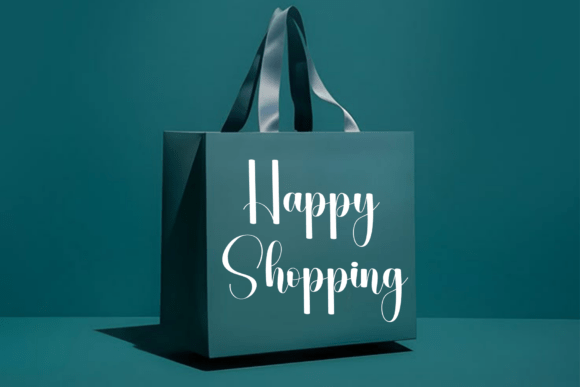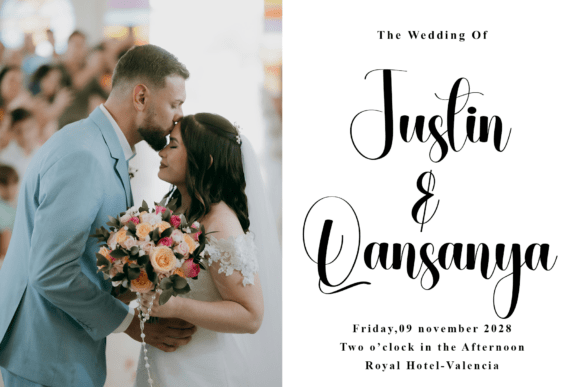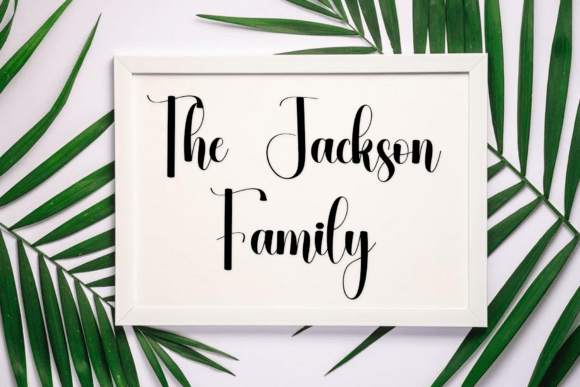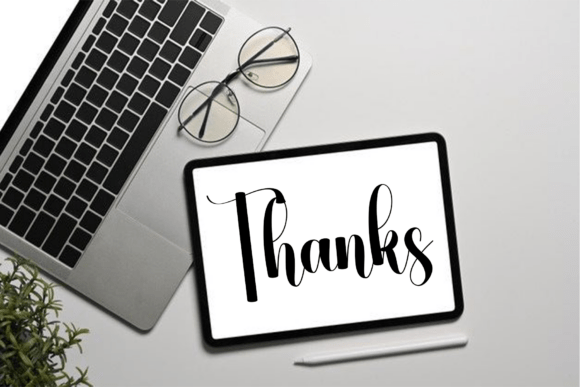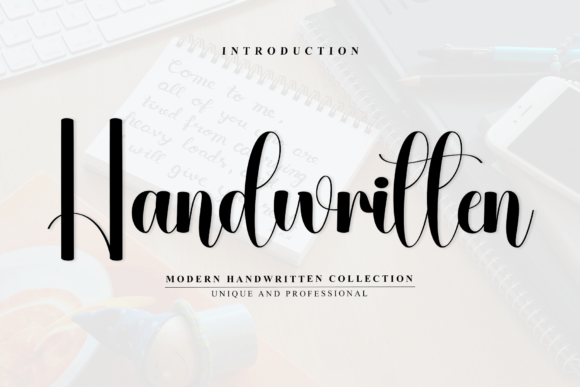
The Elegance of Handwritten Fonts: A Modern Calligraphy Script
In the realm of typography, handwritten fonts have always been a popular choice for designers seeking to add a touch of elegance and sophistication to their creations. Among these, the “Handwritten” font stands out as a quintessential example of modern calligraphy. Belonging to the handwritten script category, this font boasts a unique blend of traditional and contemporary design elements, making it an ideal choice for a wide range of applications.
Characteristics of the Handwritten Font
The “Handwritten” font is characterized by its elegant, flowing strokes with a high-contrast weight. The tall ascenders and sweeping curves of the letters create a sense of rhythm and fluidity, reminiscent of natural handwriting. However, unlike everyday handwriting, this font has been polished to achieve a refined, professional look. The smooth, rounded terminals of the letters add a touch of warmth and sophistication, setting it apart from more traditional script fonts.
Design and Aesthetic Appeal
One of the defining features of the “Handwritten” font is its fluid, cursive style, where the letters are connected in a seamless flow. This design choice gives the font a stylish, feminine, and expressive appearance, making it particularly well-suited for applications where elegance is paramount. The font strikes a delicate balance between contemporary design and timeless script traditions, resulting in a form that conveys both delicacy and confidence.
Versatility Across Creative and Professional Contexts
The versatility of the “Handwritten” font is one of its most compelling attributes. Its elegant appearance makes it an excellent choice for branding and logos in industries such as beauty, fashion, and lifestyle, where projecting an image of sophistication and refinement is crucial. Beyond these applications, the font also lends itself beautifully to more personal and intimate uses, such as wedding invitations, greeting cards, and stationery, thanks to its romantic and flowing character.
Applications in Design
The “Handwritten” font can elevate a variety of design projects, adding a personal yet upscale touch. Some of its key applications include:
• Branding and Logos: Ideal for businesses in the beauty, fashion, or lifestyle sectors looking to convey elegance and sophistication.
• Wedding Invitations and Stationery: Adds a romantic, personal touch to wedding invitations, greeting cards, and other stationery items.
• Packaging Design: Enhances product packaging, making it stand out with a refined, luxurious feel.
• Social Media Graphics: Perfect for creating engaging, stylish social media content that captures the audience’s attention.
• Editorial Layouts: Adds a touch of elegance to magazine articles, blogs, and other editorial content, making it more visually appealing.
Why Designers and Crafters Love Handwritten Fonts
Designers and crafters often seek fonts that can help their creations stand out while conveying a specific mood or aesthetic. The “Handwritten” font, with its blend of elegance, expressiveness, and professionalism, has become a favorite among creative professionals. Its ability to add a personal touch to designs without compromising on sophistication makes it a go-to choice for a wide range of projects.
The “Handwritten” font represents a beautiful fusion of modern calligraphy and traditional script elements, offering designers and crafters a versatile tool for creating elegant, expressive designs. Whether you’re working on branding, packaging, editorial layouts, or more personal projects like wedding invitations, this font can add a touch of sophistication and charm that sets your work apart. Its enduring appeal lies in its ability to balance contemporary design with timeless elegance, making it a valuable addition to any designer’s toolkit.